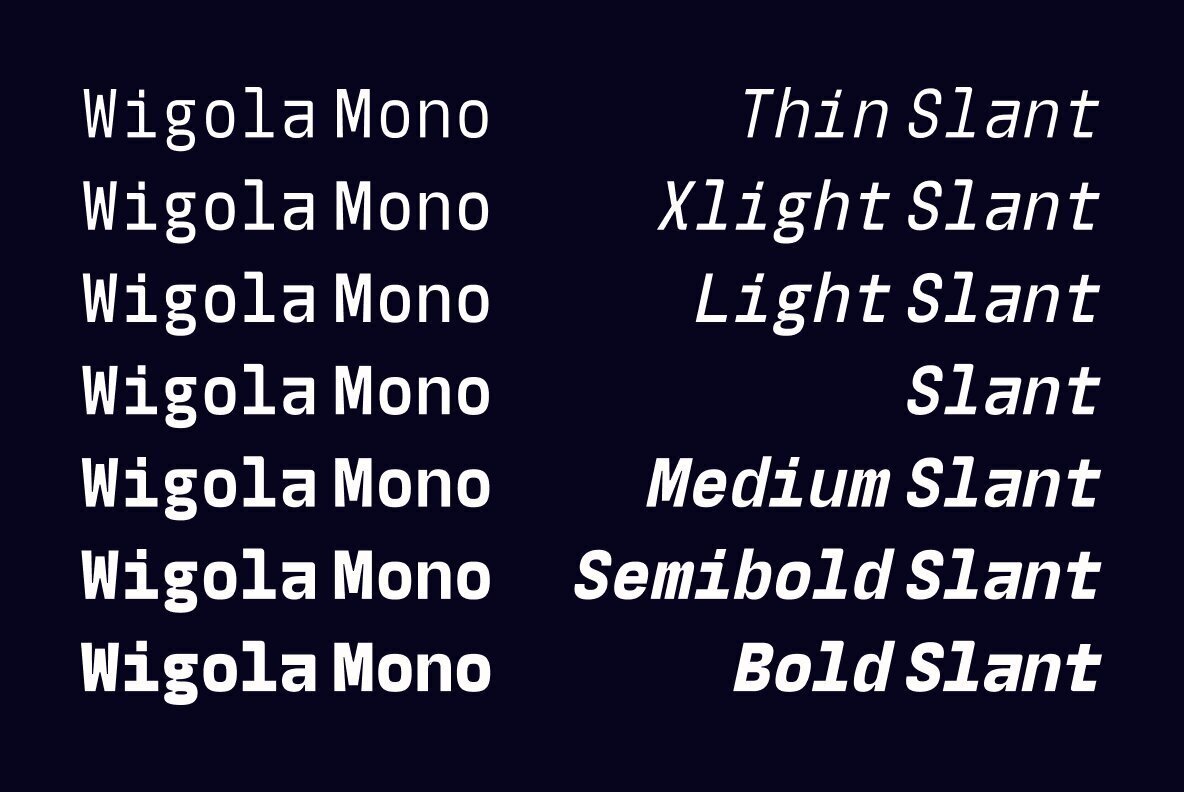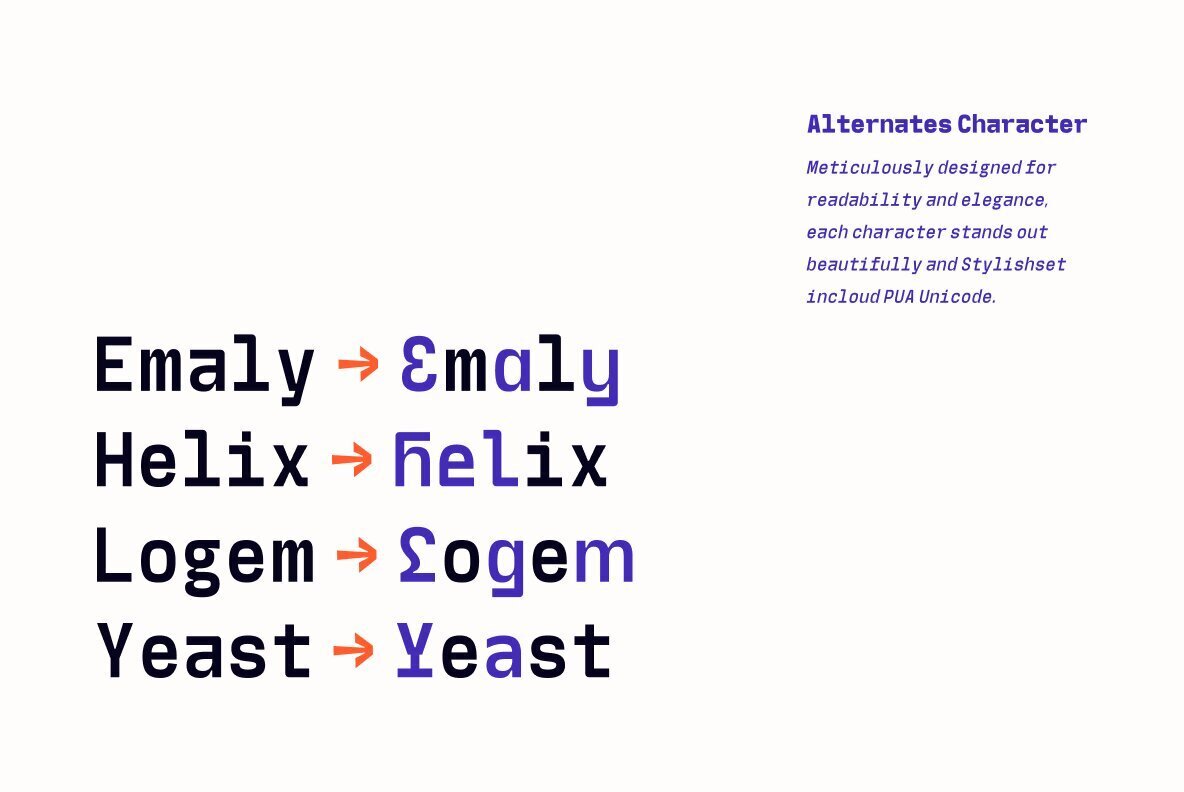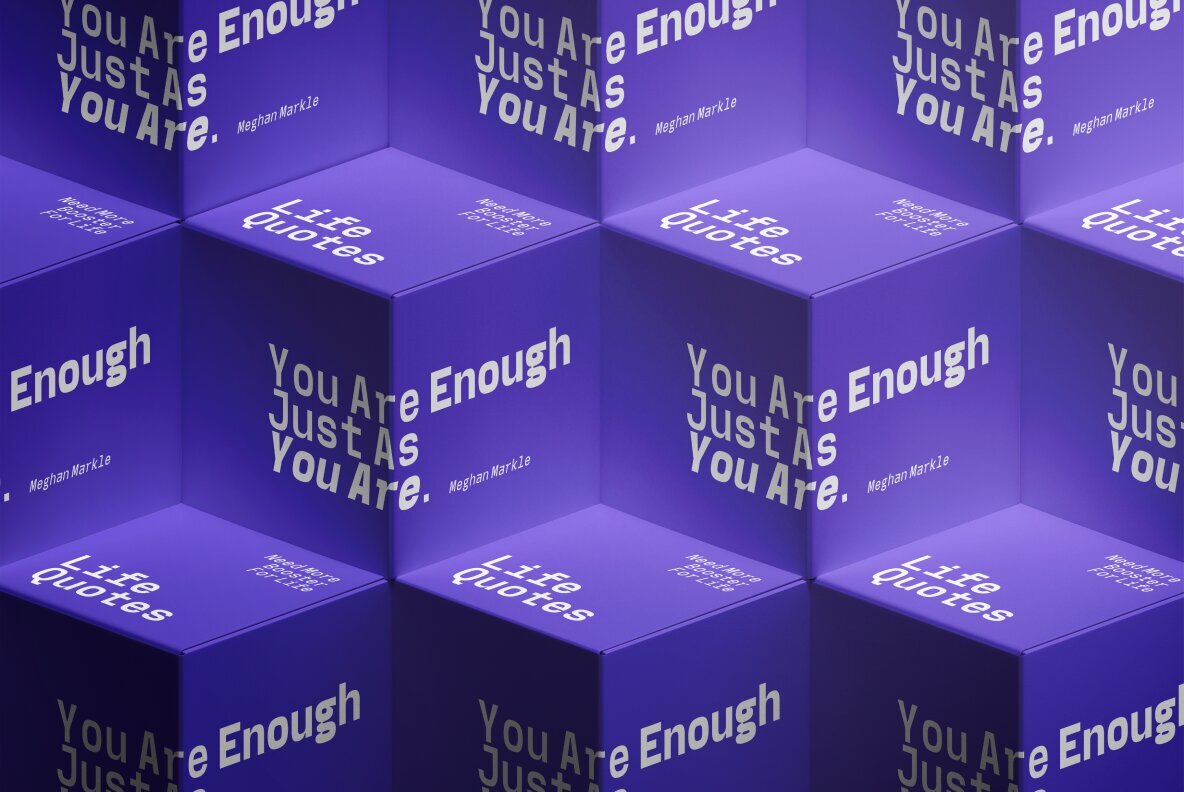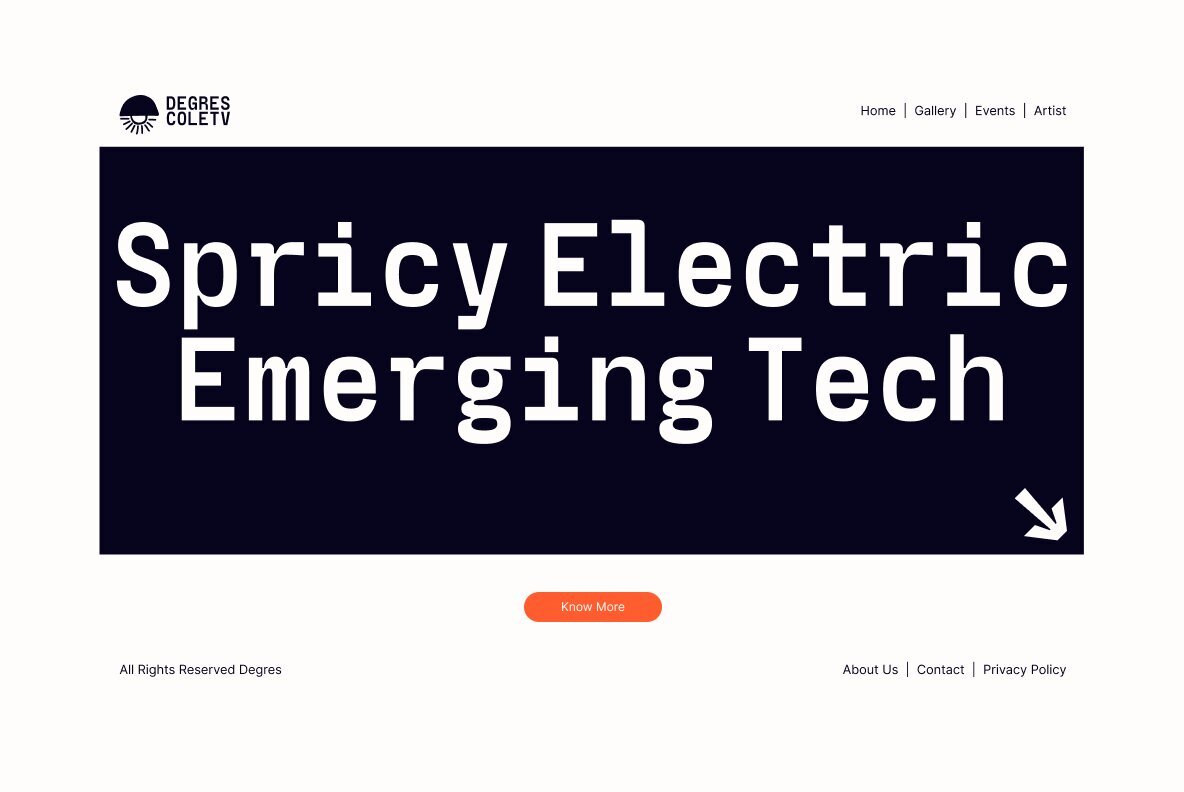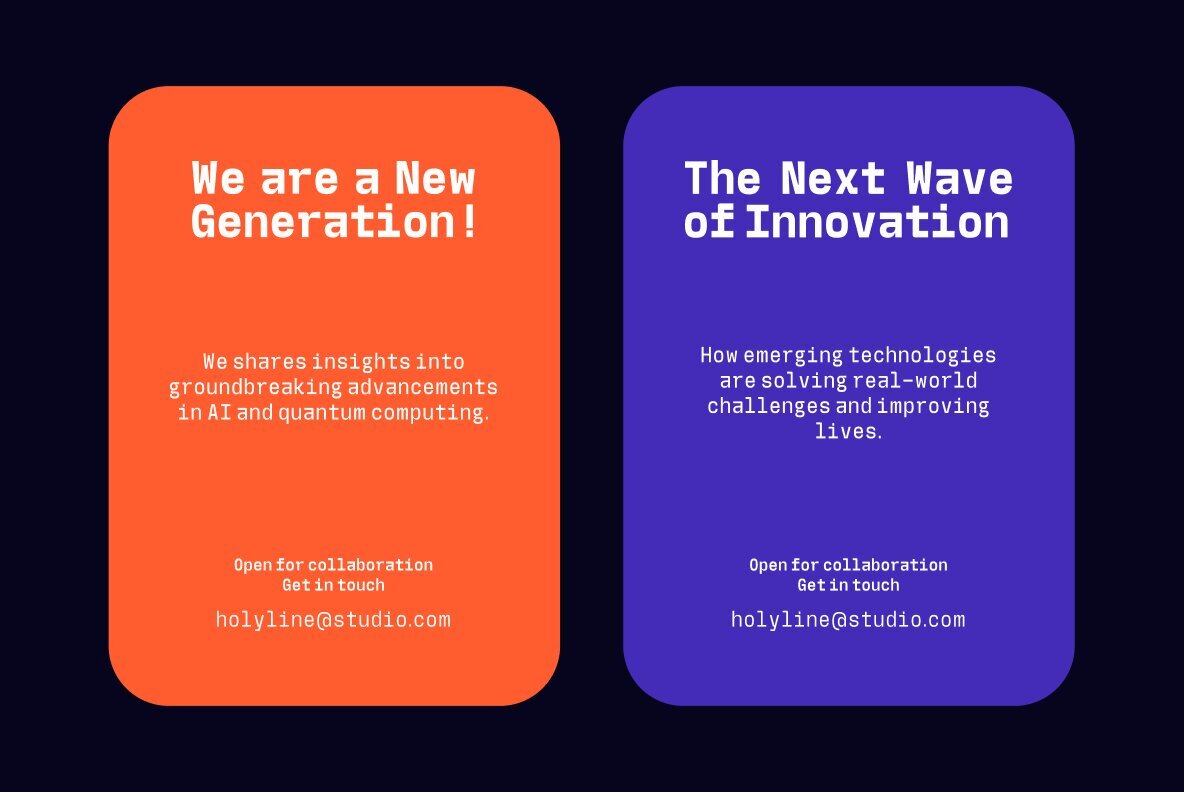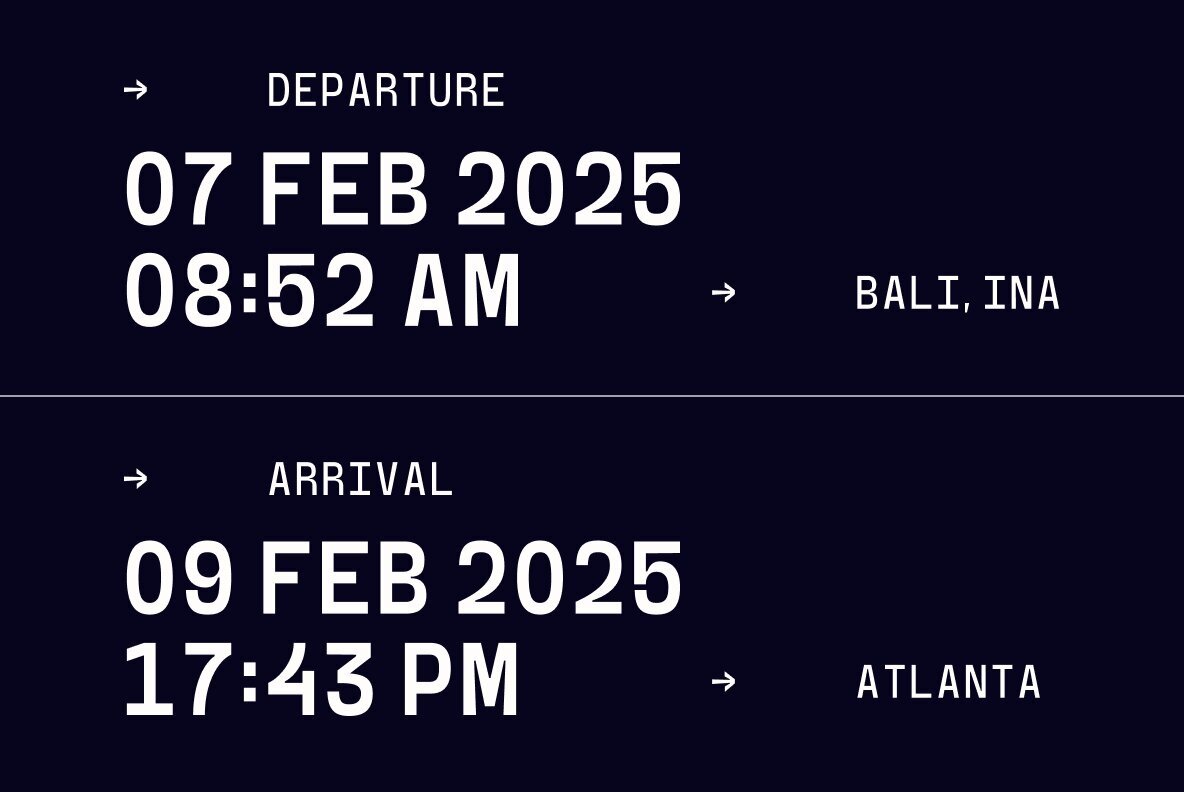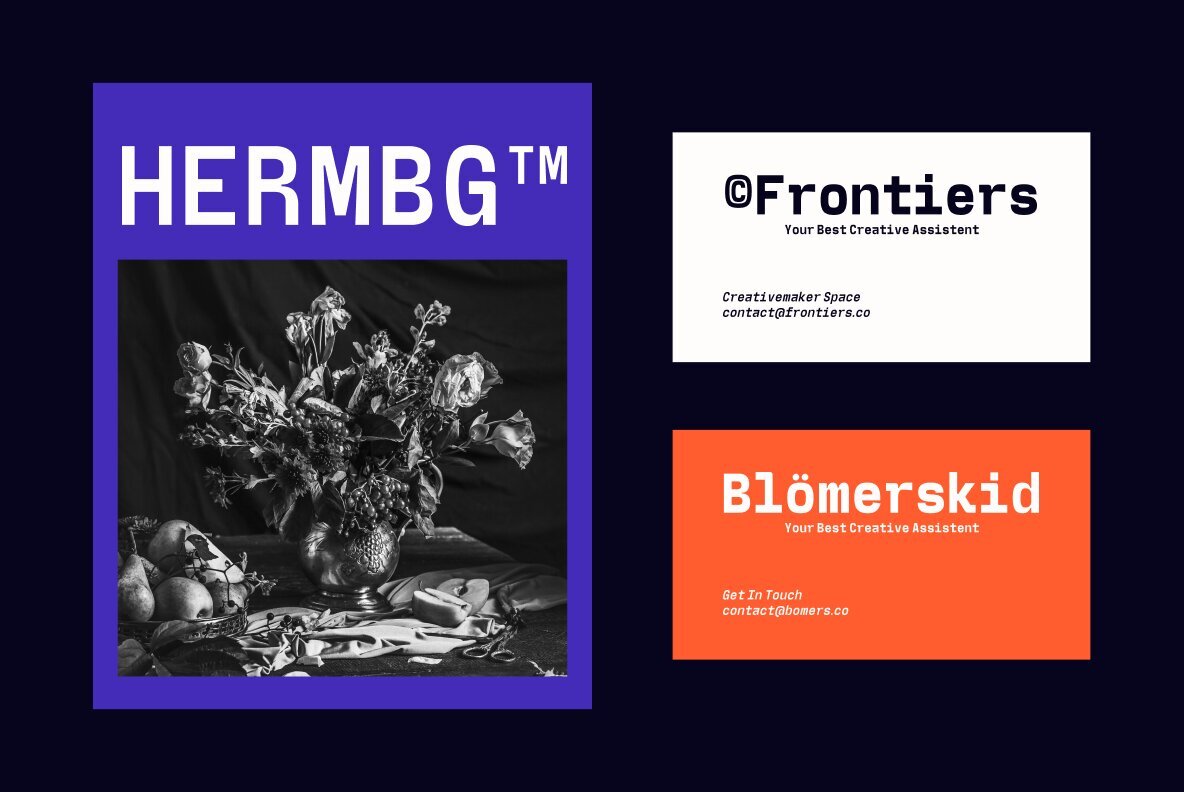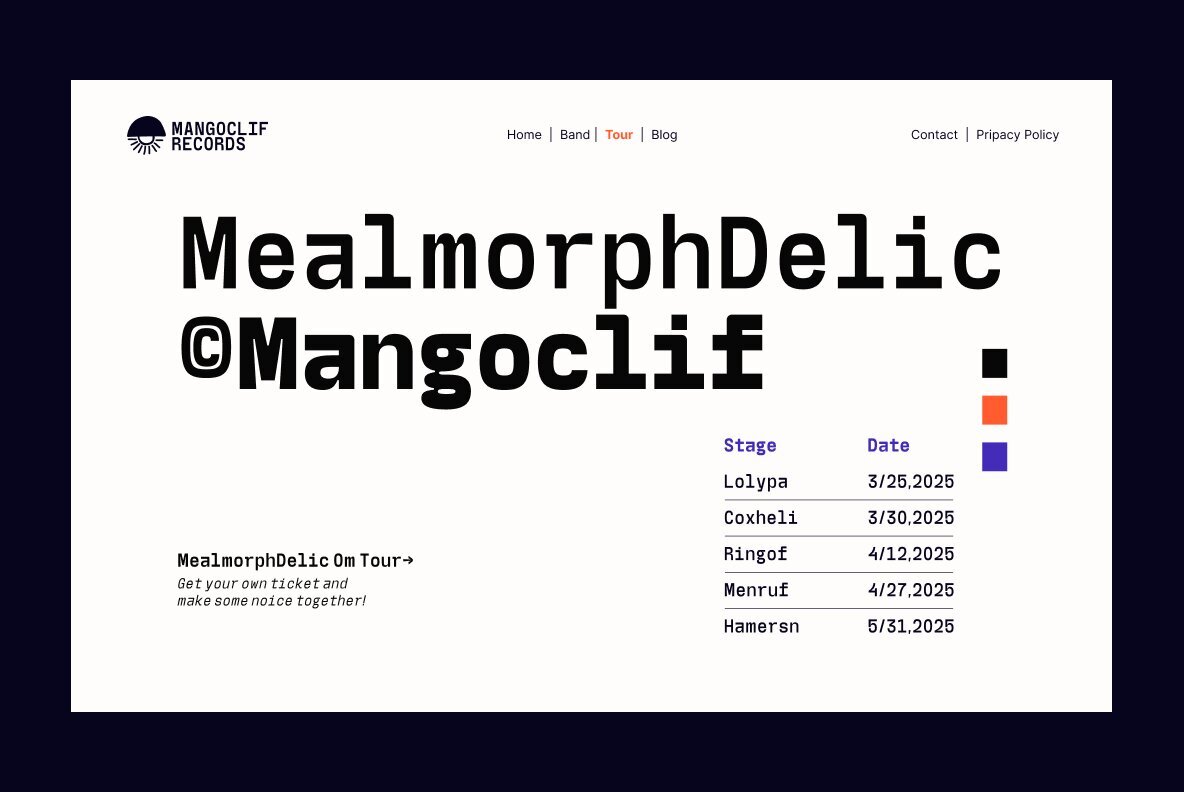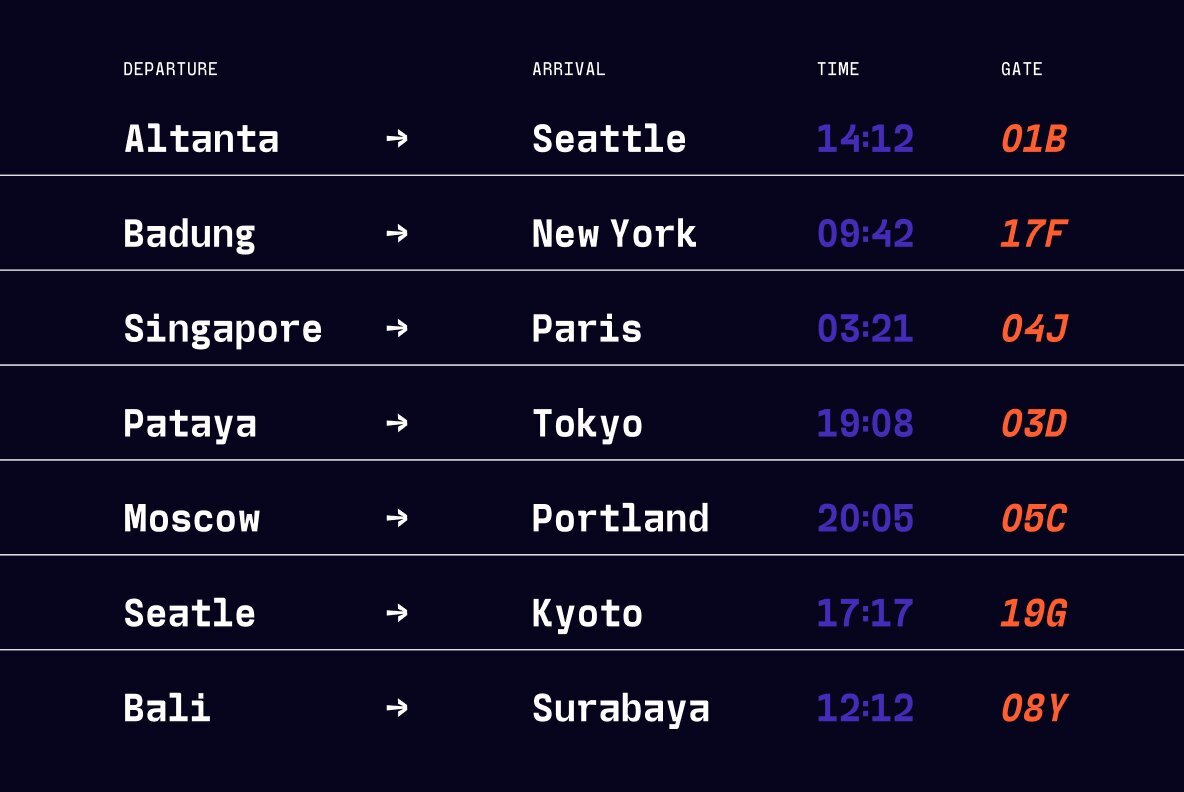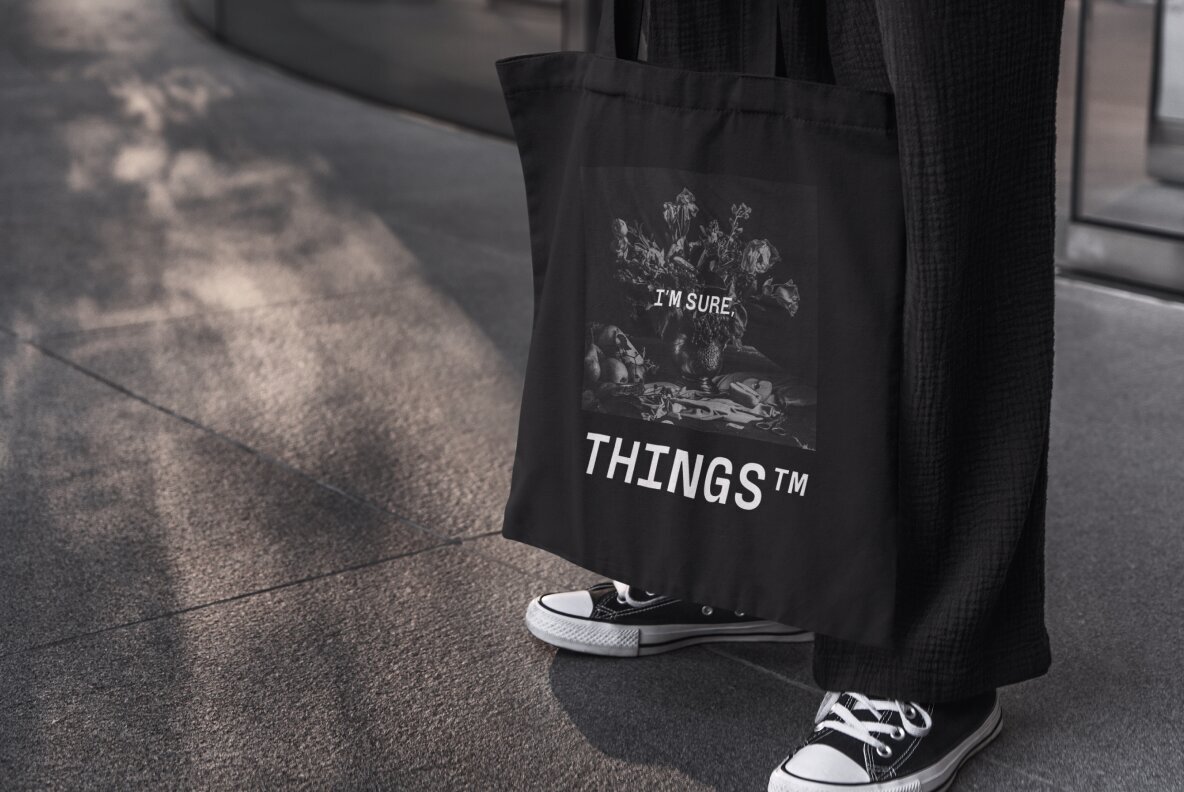
Wigola Mono Font
Wigola Mono is a sleek and versatile monospace sans serif font, blending the precision of computer screens with the timeless appeal of grotesk and modernist design styles. Its clean, structured form makes it a perfect choice for both technical and creative applications. With 7 weights ranging from thin to bold, and matching slant styles for each weight, Wigola Mono offers a total of 14 fonts. This comprehensive range provides designers with the flexibility to create dynamic layouts that balance functionality and aesthetic appeal. Ideal for tech-inspired designs, coding visuals, editorial layouts, and branding, Wigola Mono brings a modern edge and structured elegance to any project.